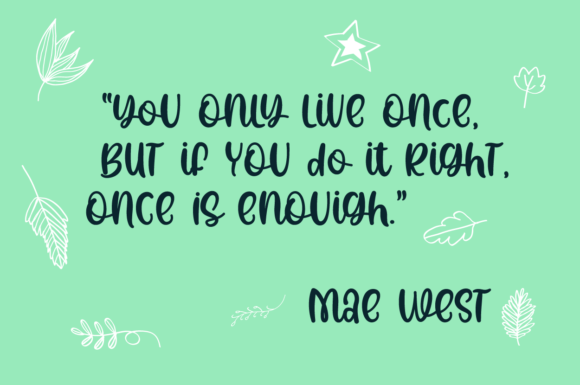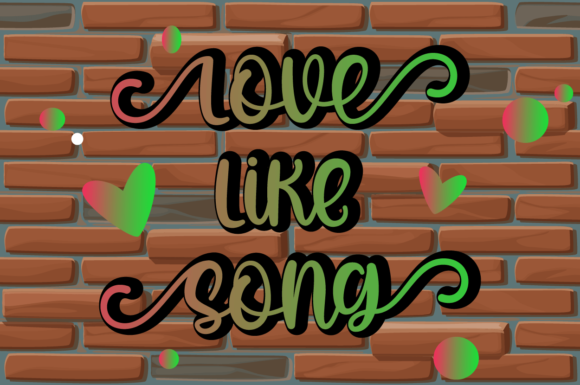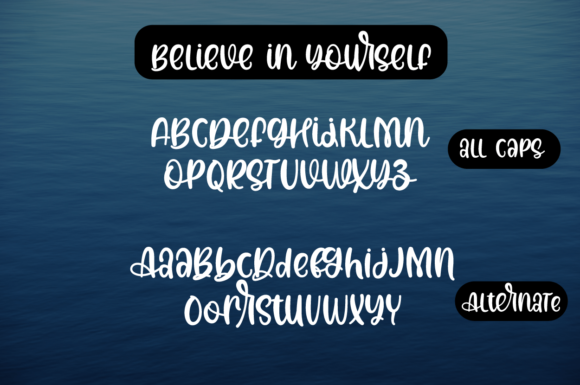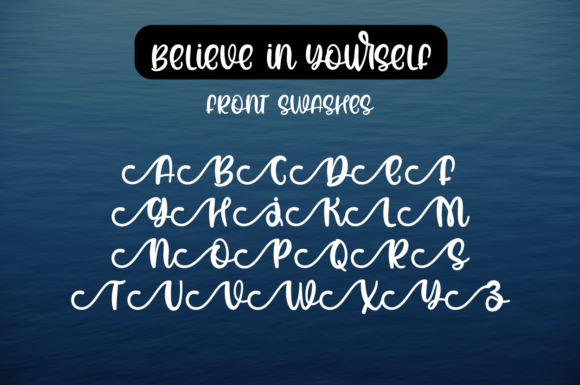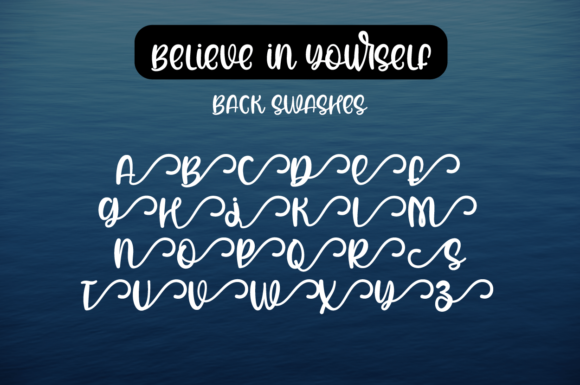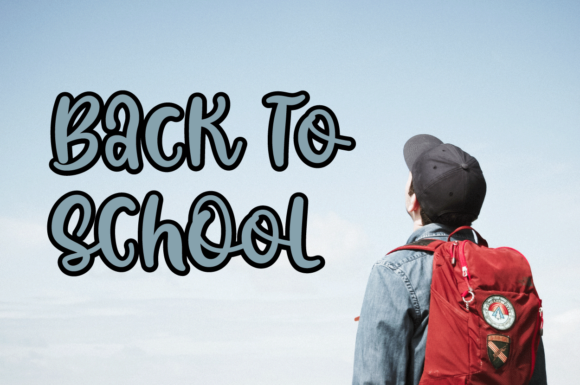
Unleash Your Creativity with the Believe in Yourself Font
Remember that moment when a spark of inspiration struck, and you knew exactly what you wanted to create? It’s the thrill of bringing a new idea to life, and it’s a feeling that every designer knows well. For those moments when you need a font that embodies the same energy and enthusiasm, we’ve got just the thing.
Meet the Believe in Yourself Font, a sweet and jolly handwritten font that’s designed to put a smile on your face. With its PUA encoded glyphs and swashes, you’ll have endless possibilities to create stunning designs that reflect your unique style. Whether you’re working on a project that needs a playful touch or a personal touch that says “you got this!”, this font is the perfect companion to help you bring your vision to life.
Believe in Yourself Font Key Features
- Font Family: Believe in Yourself is a unique, hand-drawn font designed to convey confidence and motivation.
- Character Set: Includes a comprehensive set of characters, including uppercase and lowercase letters, numbers, and punctuation marks.
- Unique Characteristics: Features a distinctive, cursive-like design with bold lines and dynamic flourishes, perfect for creating eye-catching headlines and titles.
Design Review: Believe in Yourself Font
Overall, I think the “Believe in Yourself Font” is a great choice for projects that require a motivational and uplifting vibe. Here’s what works well:
- ✨ The font’s playful and energetic feel makes it perfect for headings and titles in motivational or inspirational content.
- ✨ The font’s legibility is excellent, making it easy to read even at smaller font sizes.
- ✨ The font’s unique design elements, such as the stylized letters and flourishes, add a touch of personality to any project.
- ⚠️ The font may not be suitable for projects that require a more formal or professional tone, as it can come across as too playful or childish.
- ⚠️ The font’s bold and italic styles may not be as effective as the regular weight, which can make it difficult to achieve consistent design consistency.
Overall, I think the “Believe in Yourself Font” is a great addition to any designer’s toolkit, but it’s essential to use it judiciously and consider the project’s tone and requirements.
The Believe in Yourself font is ideal for:
- Motivational quotes and messages.
- Self-improvement and personal growth projects.
- Inspirational posters and graphics.
Remember to use the font in a way that resonates with your message and audience.